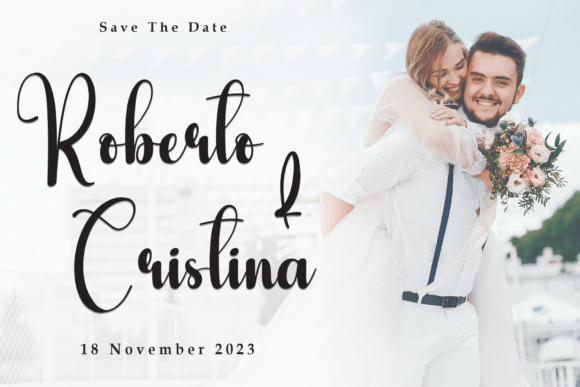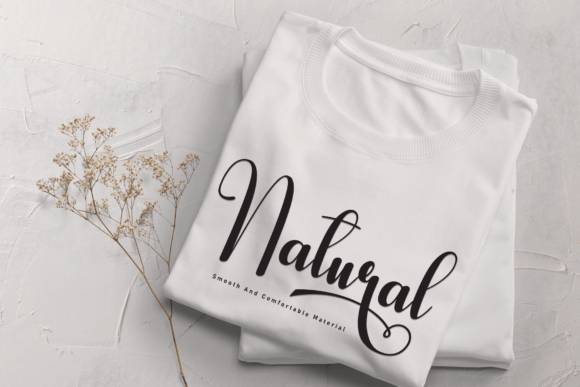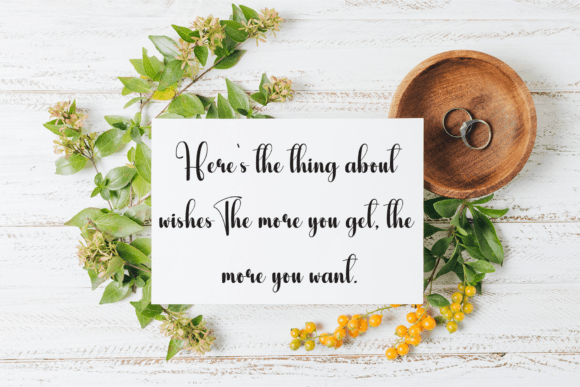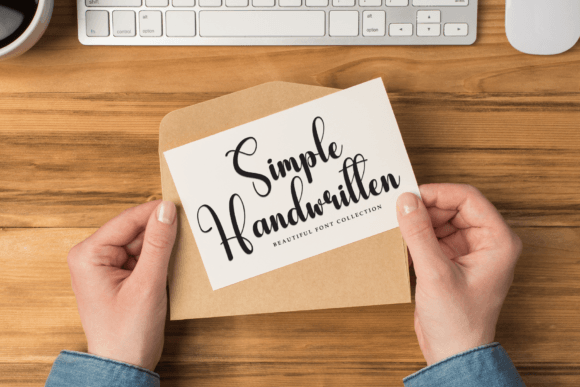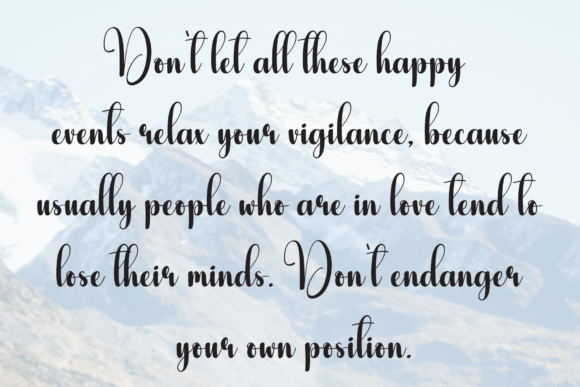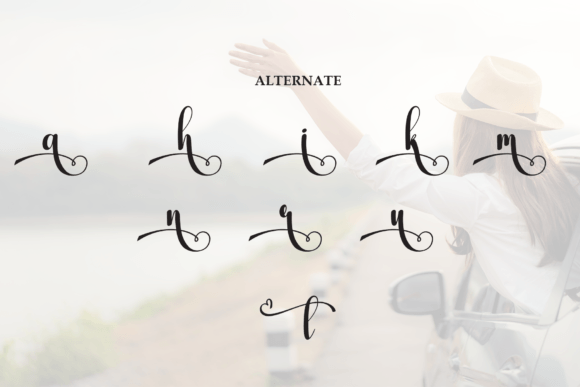
Introduction to Jourtrip Font
Do you remember the excitement of planning your wedding, and the hours spent crafting the perfect invitation? For many of us, the process of creating a unique and memorable design is what makes a project truly special. But, let’s be honest – finding the right font can be a challenge. This is where the Jourtrip Font comes in – a sweet and friendly handwritten display font that’s perfect for adding a fun touch to your creative project.
As a designer, you’re always on the lookout for high-quality design resources that can elevate your work. The Jourtrip Font is a valuable addition to your toolkit, offering a transparent background and a range of styles that can be used for everything from wedding invitations to social media graphics. With its cute and playful feel, this font is sure to bring a smile to your clients’ faces.
Key Features of Jourtrip Font
- Features a transparent background, ideal for use on various design elements and backgrounds.
- Includes a range of glyphs and characters, suitable for various languages and applications.
- Designed with a unique, modern aesthetic, making it perfect for contemporary design projects.
Honest Review: Jourtrip Font
I recently stumbled upon the Jourtrip Font, and I must say it’s a great addition to any design project. This free download is perfect for designers looking for a high-quality font to elevate their creative project.
What works well: ✨ The Jourtrip Font has a clean and modern design, making it suitable for a wide range of applications, from logos to body text. The transparent background allows for easy editing and customization, giving you complete control over your design. Additionally, the font is available in various weights and styles, providing flexibility for different design needs.
What could be improved: ⚠️ While the Jourtrip Font is free, it’s not a fully comprehensive font family. It’s missing some essential characters and symbols, which might limit its use in certain design contexts.
Overall impression: I’m impressed with the Jourtrip Font’s quality and versatility. It’s a solid choice for designers who want a reliable and free design resource. However, its limitations should be taken into account when choosing a font for a critical design project.
- Perfect for logos, headings, and body text
- High-quality design with a clean and modern look
- Transparent background for easy editing
- Available in various weights and styles
Common Use Cases for Jourtrip Font
Jourtrip Font is suitable for a wide range of creative projects, including graphic design, branding, and digital marketing. Its high quality and transparent background make it perfect for creating eye-catching graphics and designs.
Tips for Getting the Most Out of Jourtrip Font
To get the most out of Jourtrip Font, experiment with different font sizes, colors, and styles to create unique and visually appealing designs. You can also combine Jourtrip Font with other design resources to create a cohesive and professional look.
Alternatives to Jourtrip Font
Alex Brush Font is a high-quality, elegant script font ideal for creative projects requiring a touch of sophistication. It’s perfect for wedding invitations, branding, and other design resources where a refined look is desired.
Compared to Jourtrip Font, Alex Brush Font offers a more traditional, handwritten feel and is suitable for projects that need a classic look. It also supports both transparent and opaque backgrounds.
Great Vibes Font is a modern, cursive font suitable for creative projects that demand a fresh, vibrant look. It’s ideal for social media graphics, advertisements, and other design resources that need to stand out.
Unlike Jourtrip Font, Great Vibes Font has a more energetic and playful feel, making it perfect for projects that require a youthful and dynamic tone. It also supports both transparent and opaque backgrounds.
Can I customize the Jourtrip Font to fit my design needs?